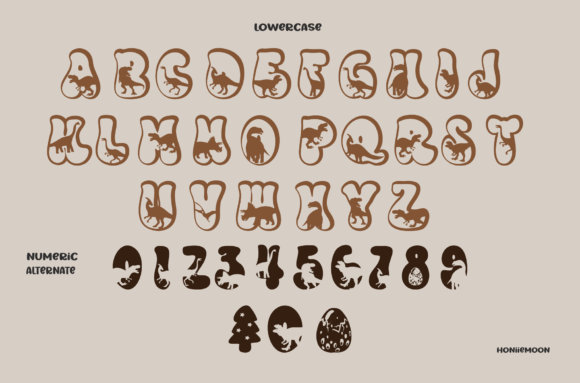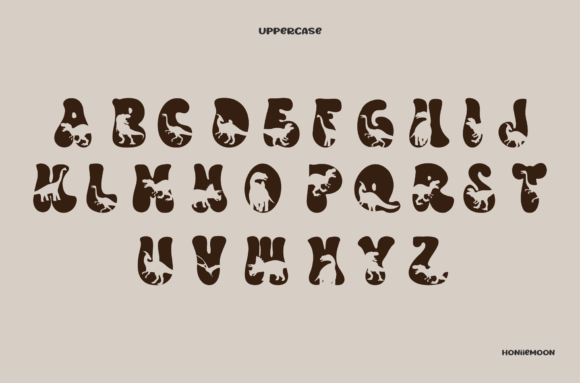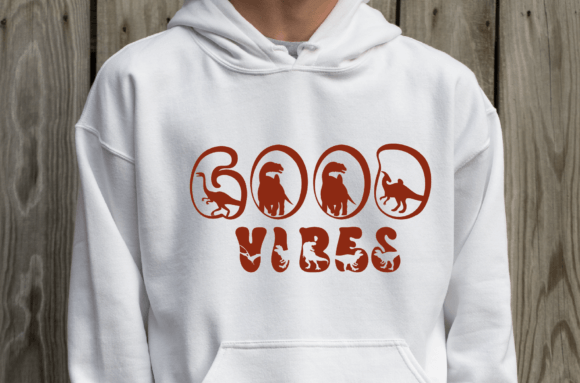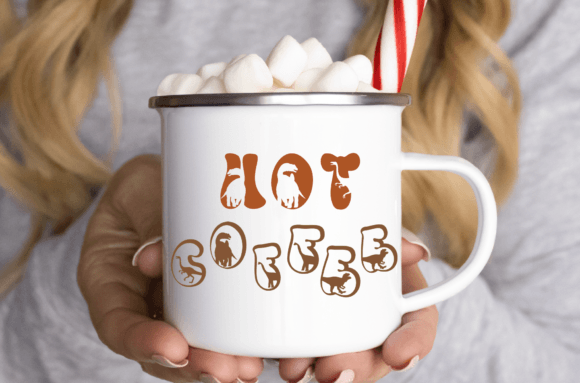
Get Ready to Roar with Creativity: Dinosaur Groovy Font
Do you remember that moment when you finally find the perfect font to bring your design to life? It’s like a symphony of creativity, where every element falls into place, and your vision becomes a reality. That’s exactly what happens when you discover the Dinosaur Groovy Font – a cool and fun decorative font that’s sure to add a touch of magic to your designs.
With its cute and jolly vibe, this bold display font is perfect for adding a playful twist to your creative projects. Whether you’re designing a children’s book, a social media campaign, or a logo for a fun brand, Dinosaur Groovy Font is the perfect addition to take your ideas to the next level. As a designer, you’ll appreciate the endless possibilities this font offers, and the ease with which it enhances each of your designs.
Dinosaur Groovy Font Key Features
- Size: The font comes in a single size, but it is highly scalable to accommodate various text sizes and resolutions.
- Resolution: Suitable for high-resolution displays and printing, with clear and crisp text at resolutions up to 300 DPI.
- Unique Characteristics: This font features a fun, playful, and retro-inspired design, with bold lines and stylized letterforms that evoke a sense of nostalgia and whimsy.
- Style: The font is available in a single style, but it can be used in a variety of applications, from headings and titles to body text and captions.
Dinosaur Groovy Font Review
At first glance, Dinosaur Groovy Font is a quirky and eye-catching font that’s sure to grab attention. I love the ✨ unique blend of futuristic and prehistoric elements that make it truly one-of-a-kind. The font’s versatility is a major plus, allowing designers to use it for a wide range of projects from logos to posters.
Some of the things that work well about this font include:
- ✨ Its playful and adventurous vibe that’s perfect for kids’ brands or projects with a fun, tongue-in-cheek tone.
- ✨ The font’s versatility, which makes it suitable for use in both digital and print designs.
- ✨ The attention to detail in the font’s design, from the dinosaur-inspired icons to the futuristic lines and shapes.
- ⚠️ The font may not be the best choice for projects that require a more serious or professional tone.
- ⚠️ The font’s bold and playful nature can make it difficult to read in smaller sizes or when used in large blocks of text.
Overall, I think Dinosaur Groovy Font is a great choice for designers looking to add some personality and whimsy to their projects. While it may not be the best fit for every project, it’s definitely a unique and memorable option that’s sure to stand out.
Getting the Most Out of Dinosaur Groovy Font
For the best results, use Dinosaur Groovy Font in bold or italic styles to emphasize key points. Experiment with different font sizes and colors to create visual interest.
Dinosaur Groovy Font is perfect for:
- Children’s educational materials
Alternatives to Dinosaur Groovy Font
Great Vibes is a fun, handwritten font perfect for creating a carefree and playful atmosphere. It is ideal for use in headings, titles, and quotes in magazines, advertisements, and social media posts.
Great Vibes has a more elegant and refined feel compared to Dinosaur Groovy Font, which is more playful and childlike. Great Vibes is a better choice when you need a more sophisticated look.
Pacifico is a beautiful, elegant script font that works well in a variety of contexts, from invitations and event materials to branding and advertising.
Pacifico has a more refined and sophisticated feel compared to Dinosaur Groovy Font, which is more playful and informal. Pacifico is a better choice when you need a font that conveys luxury and elegance.
Alex Brush is a handwritten font with a touch of elegance and sophistication. It is perfect for use in titles, headings, and body text in magazines, advertisements, and websites.
Q: What is the recommended font size for optimal readability with the Dinosaur Groovy Font?
The recommended font size for optimal readability with the Dinosaur Groovy Font is between 12pt and 24pt. This range provides a clear and legible reading experience, while also allowing the font’s unique character to shine through.